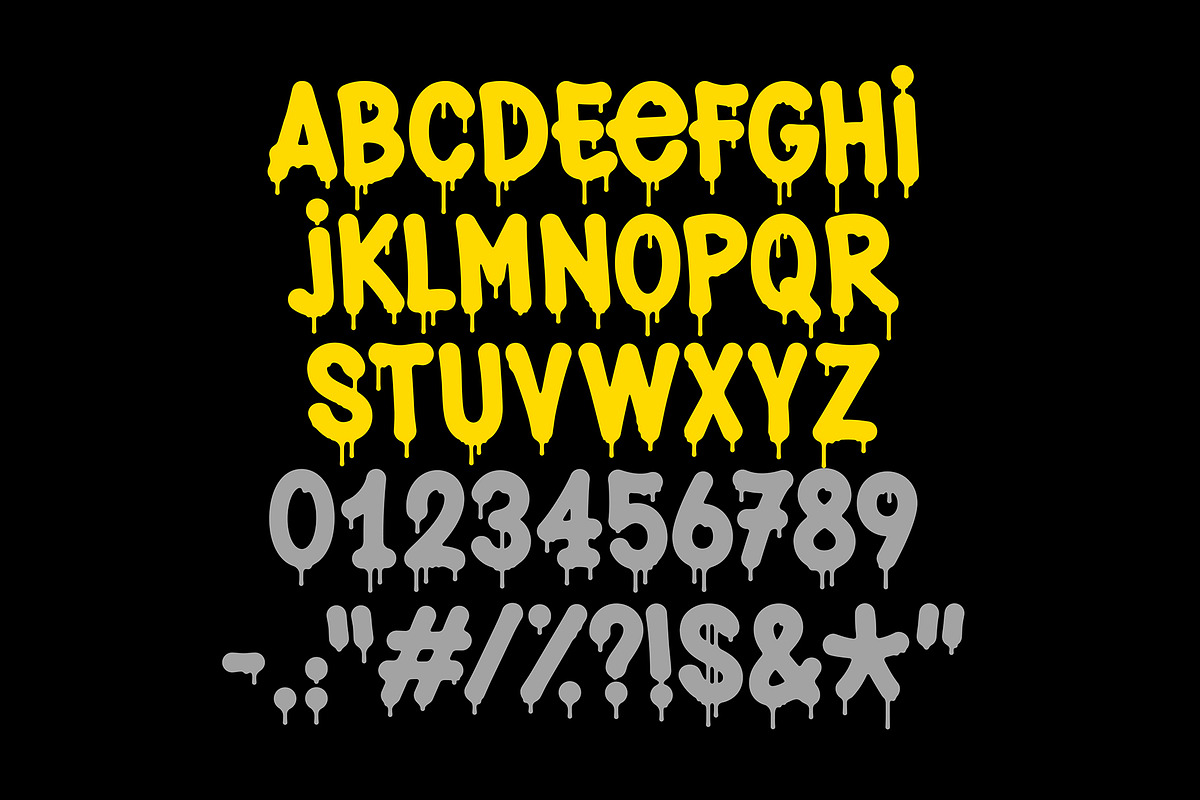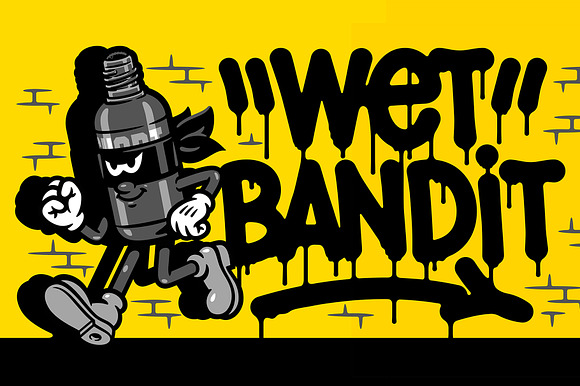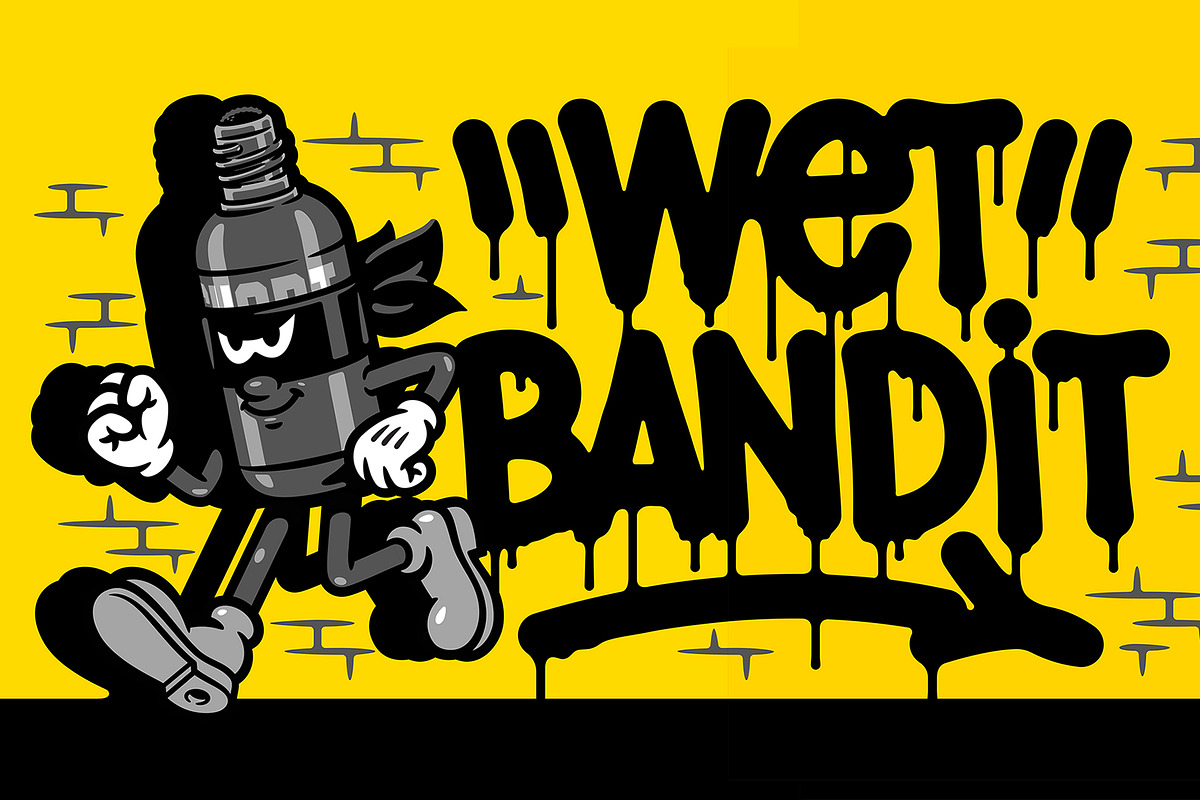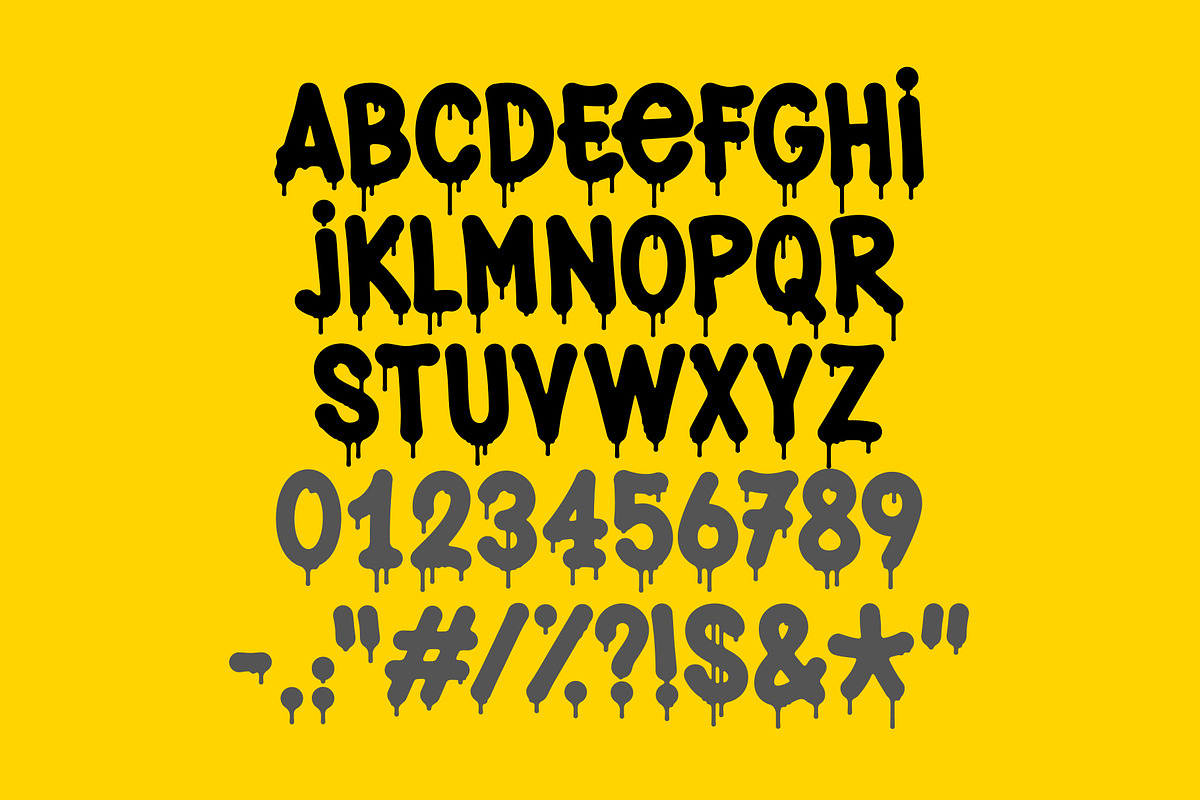
Wet Bandit Font
Wet Bandit is a font inspired by the Graffiti Markers.
Including Drippy alternates signs, numbers and punctuation.
Wet Bandit Font by MightySHORT fits naturally into Branding, posters, packaging, typography.